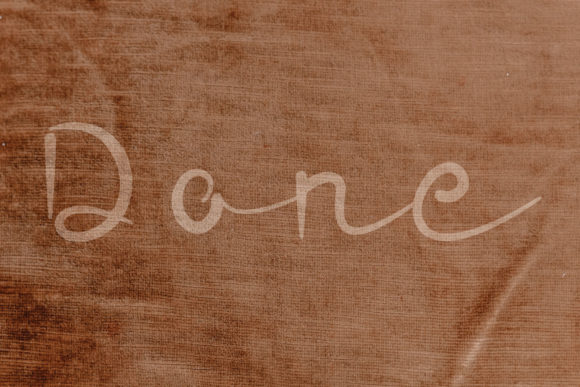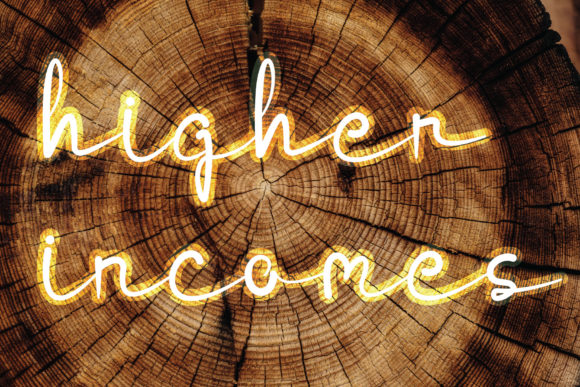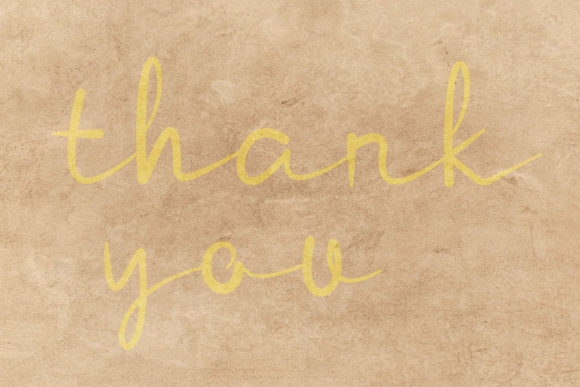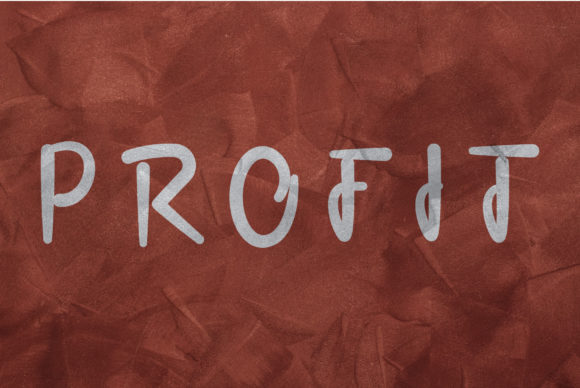
Done Font
About Done Font
Done is a beautiful and relaxed brushed script font that exudes a sense of charm and ease. With its casual and flowing letterforms, this font adds a touch of elegance and informality to your designs. Whether you’re working on a formal project or a more laid-back design, Done is a versatile font that can complement a wide range of styles.
The brush-like strokes of Done give it a natural and effortless appearance. Each letter has a distinct character and a gentle sway, creating a sense of movement and liveliness. This font’s relaxed and approachable style makes it a perfect choice for adding a personal and friendly touch to your designs.
One of the great advantages of Done is its versatility. It can be easily matched to various design themes and contexts, whether you’re creating branding materials, advertisements, social media graphics, or even personal projects like invitations and greeting cards. Its relaxed nature allows it to adapt to different design styles and atmospheres, making it a reliable choice for any creative endeavor.
The legibility of Done ensures that your message will be conveyed clearly to your audience. Its smooth and balanced strokes make reading effortless, while its gentle curves and connections add a touch of artistic flair. Done is designed to make your text appear effortless and natural, as if it was written with a skilled hand.
In summary, Done is a lovely and relaxed brushed script font that brings a sense of charm and informality to your designs. Its versatility allows it to be matched with a wide range of design styles, making it a great choice for both formal and informal projects. Add Done confidently to your designs, and you’ll love the outcome it brings.